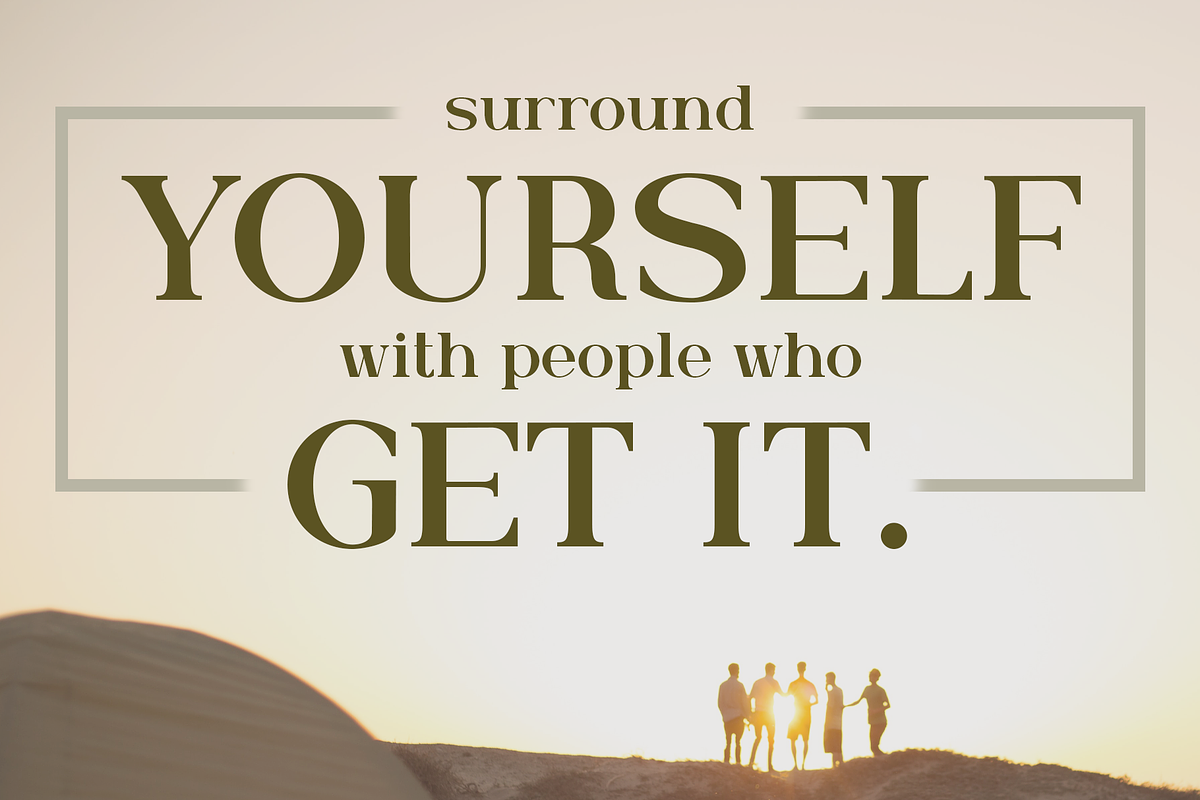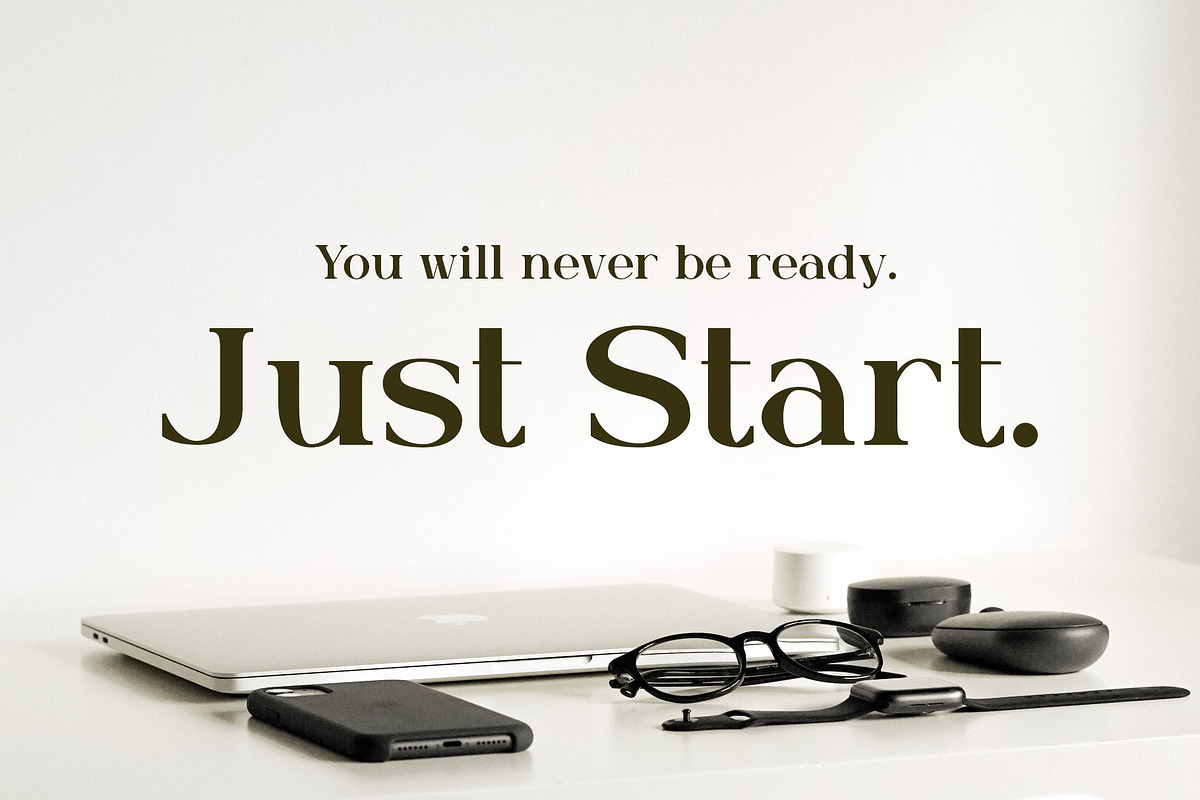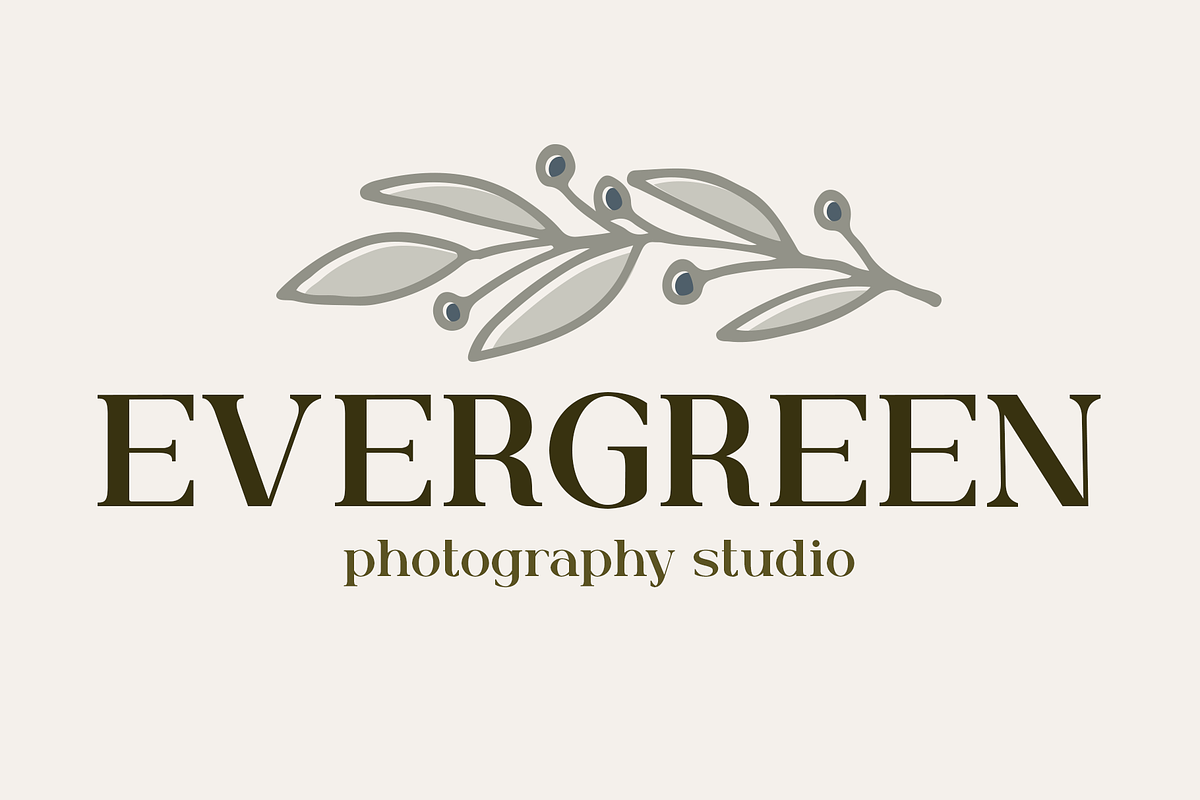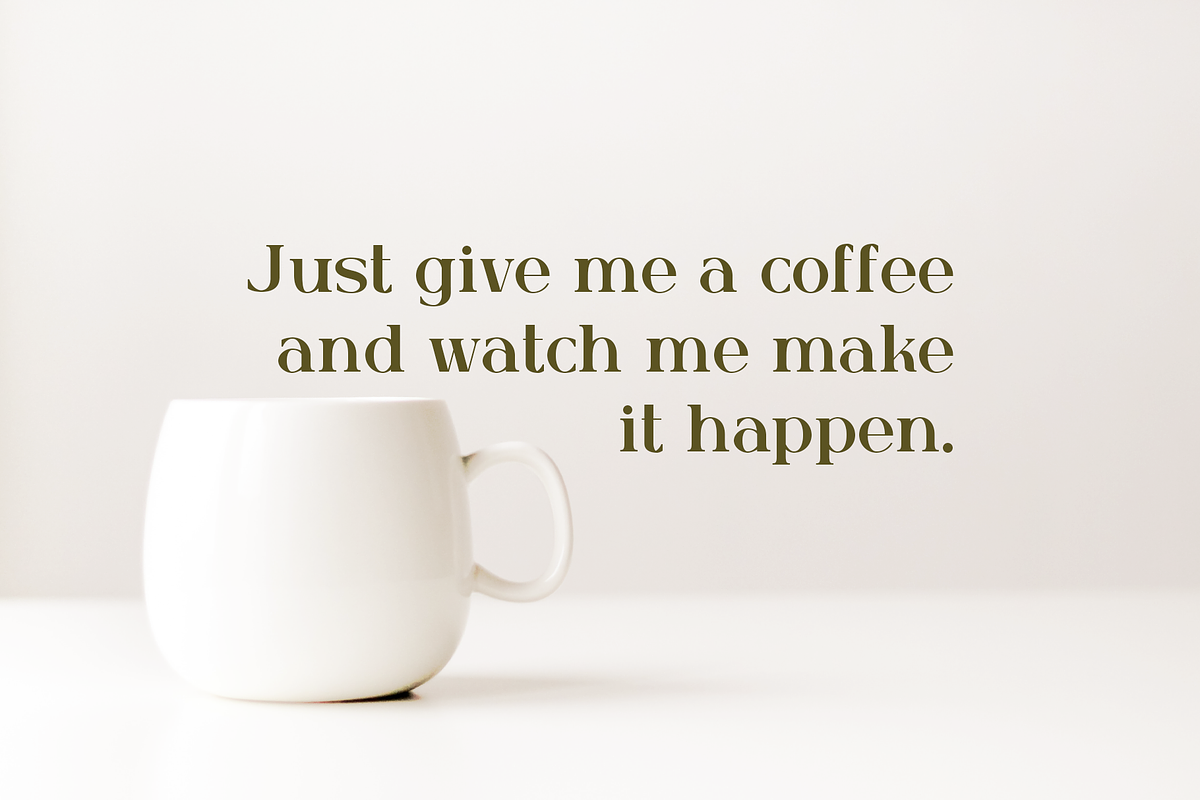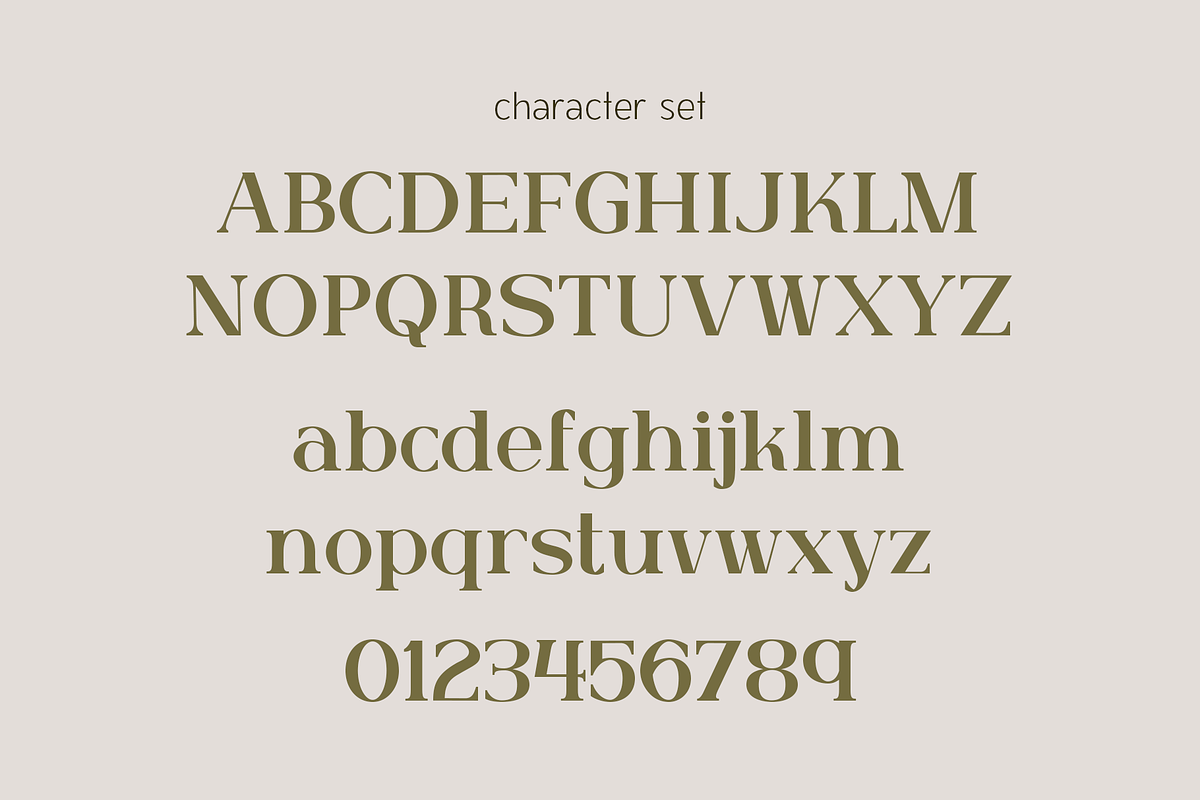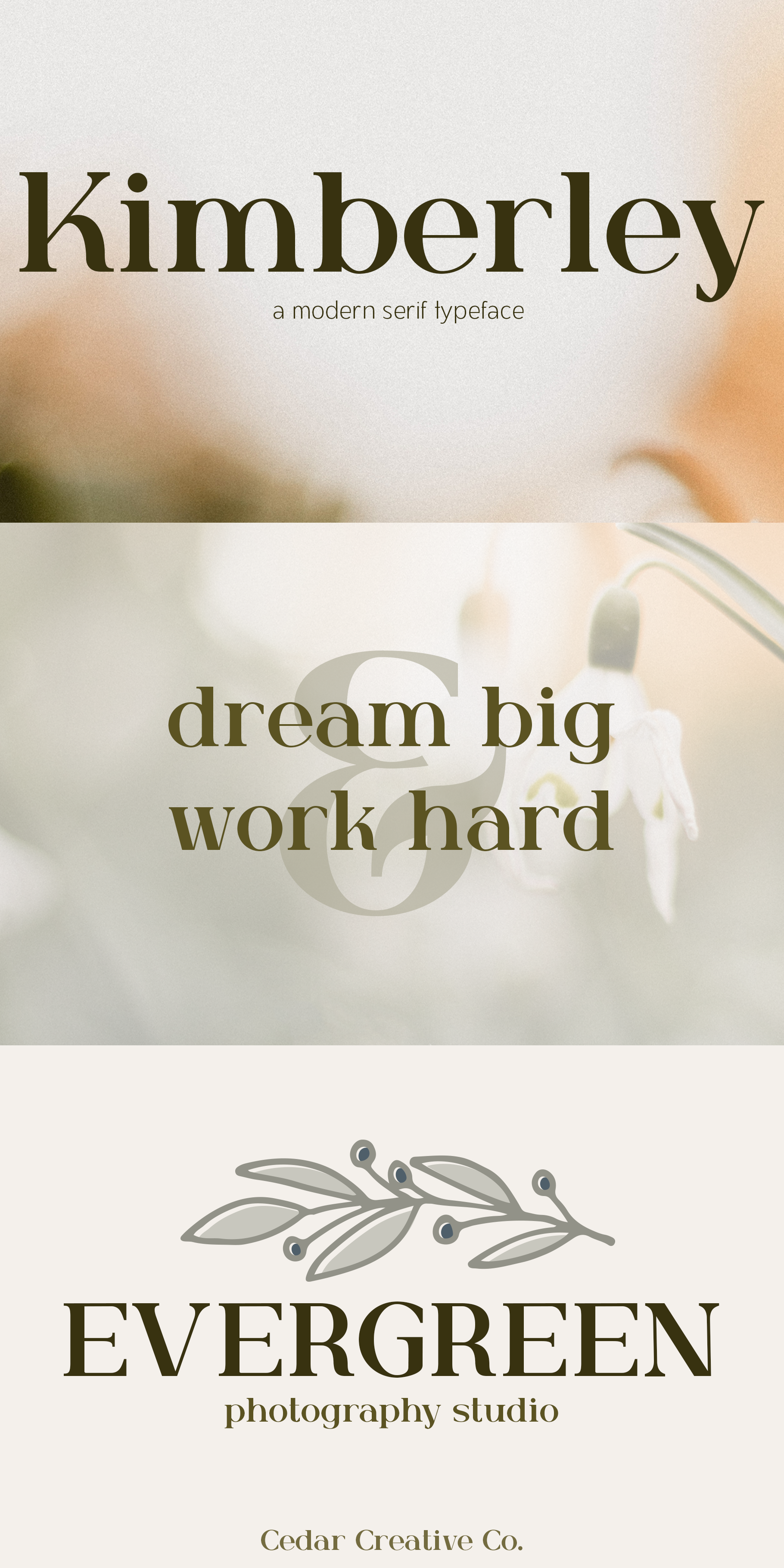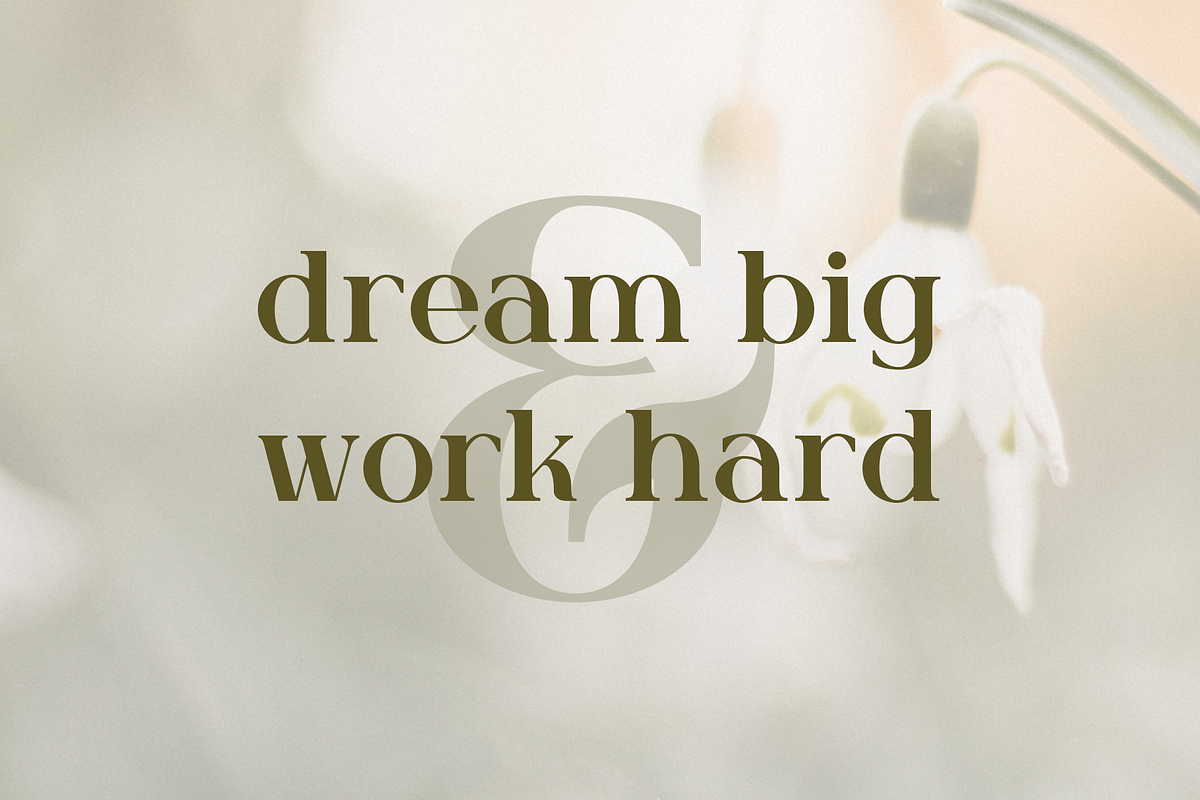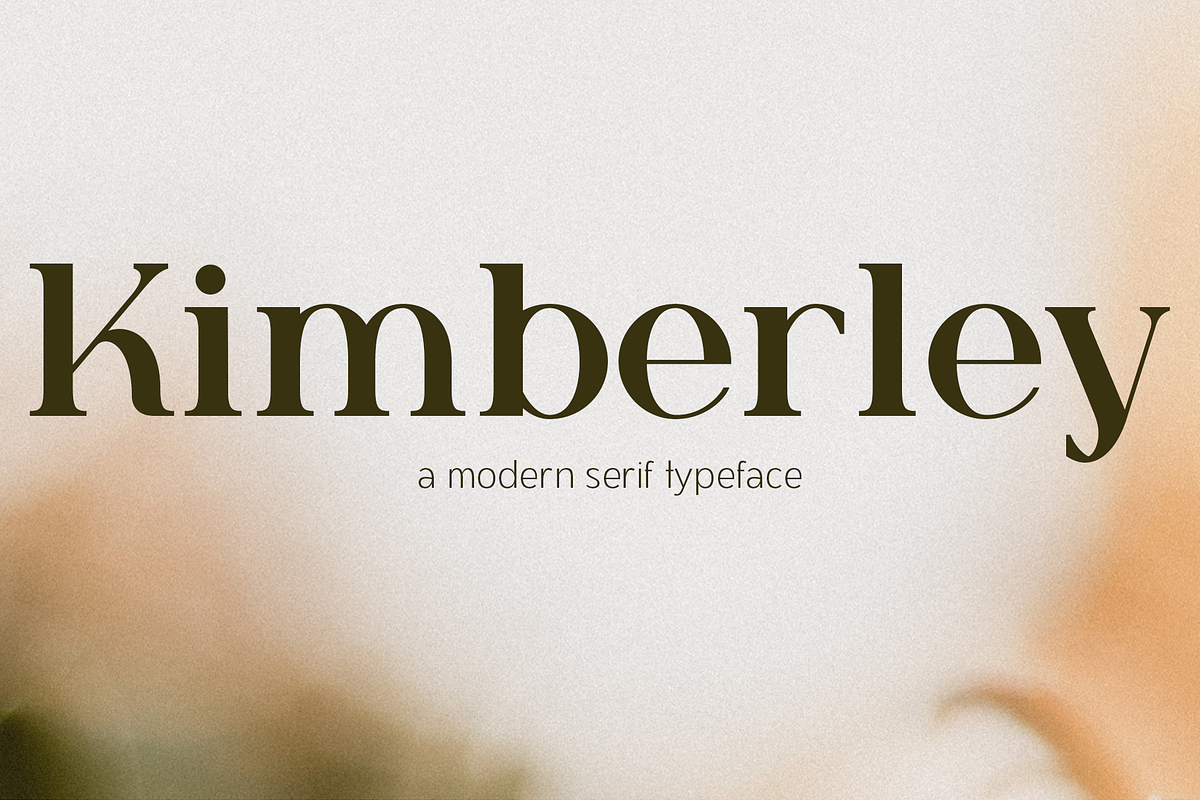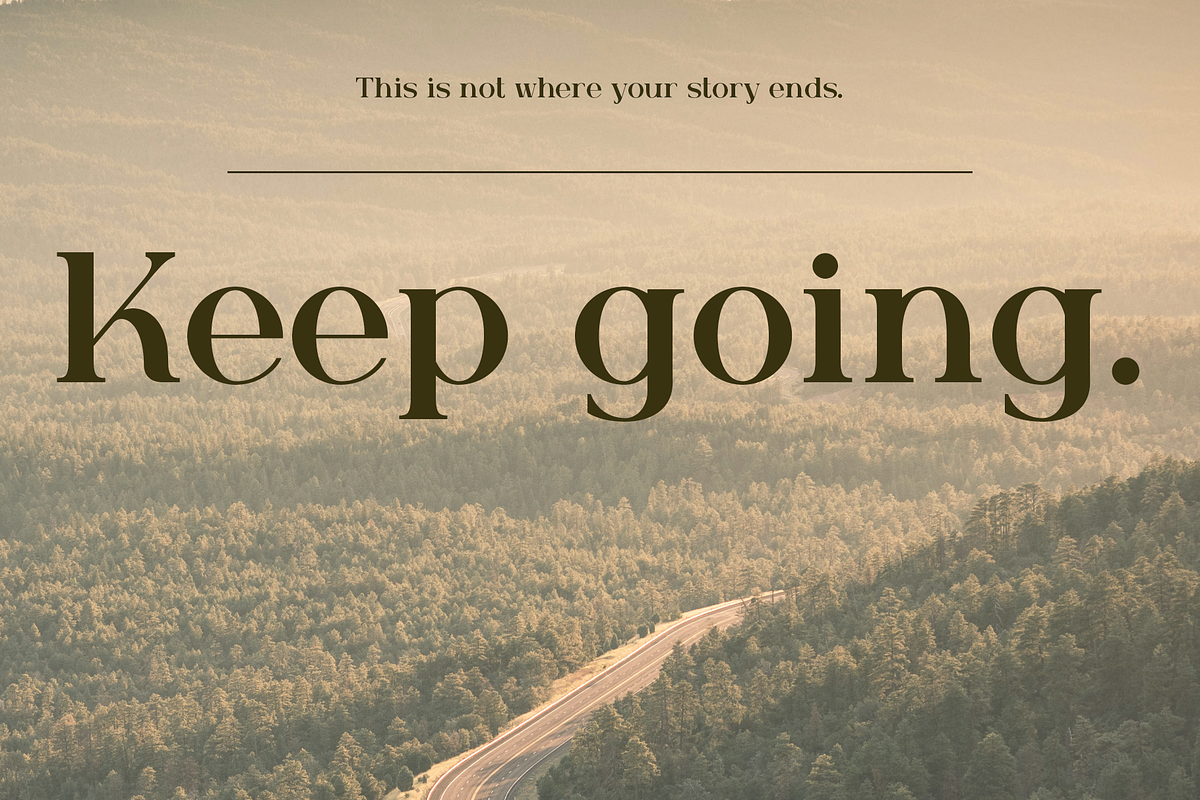
Kimberley | A Modern Serif Font
Kimberley is a romantic, yet simplistic, modern serif font.
This font includes both an uppercase and lowercase alphabet, along with extended punctuation.
The great part about this beautiful modern serif font is it can be used for so many different purposes! Use Kimberley for quotes, graphics, t-shirt designs, stationery, or even your business branding. I think this font would make beautiful logos, websites, and headings that catch your customers attention.
This typeface is unique because any designer can create stunning artwork with this romantic font, even if they do not have a lot of experience using type features in design programs.